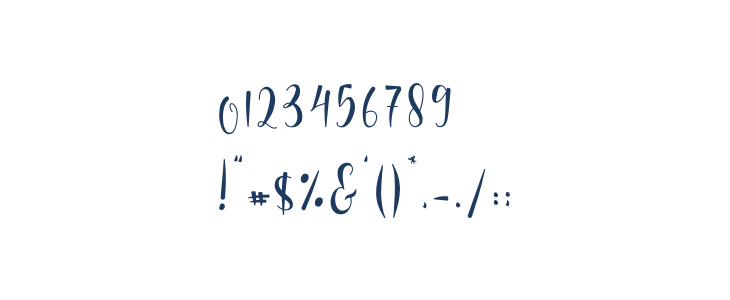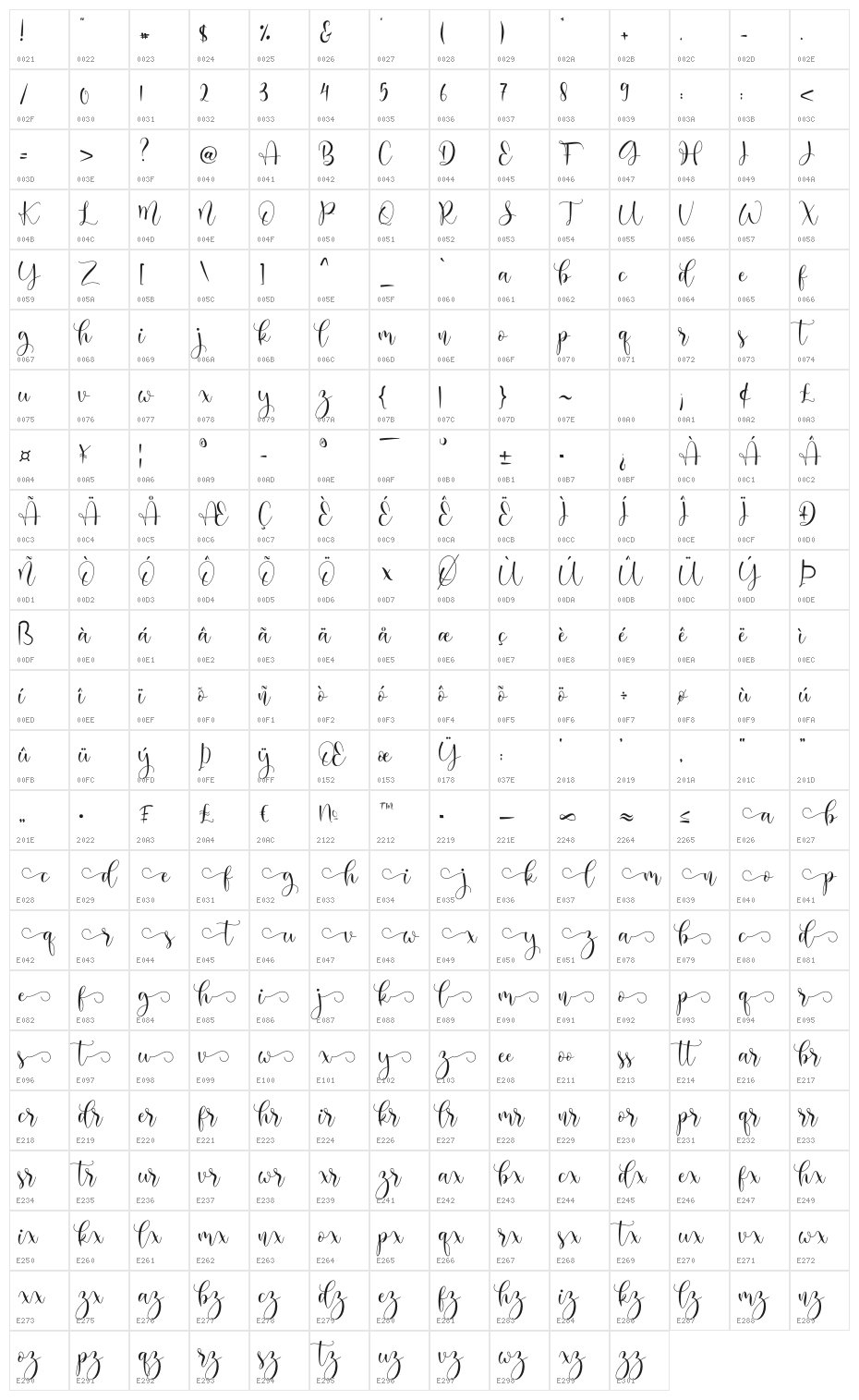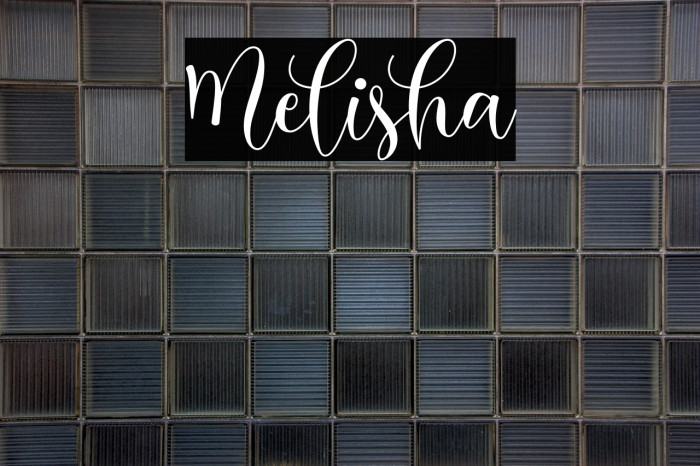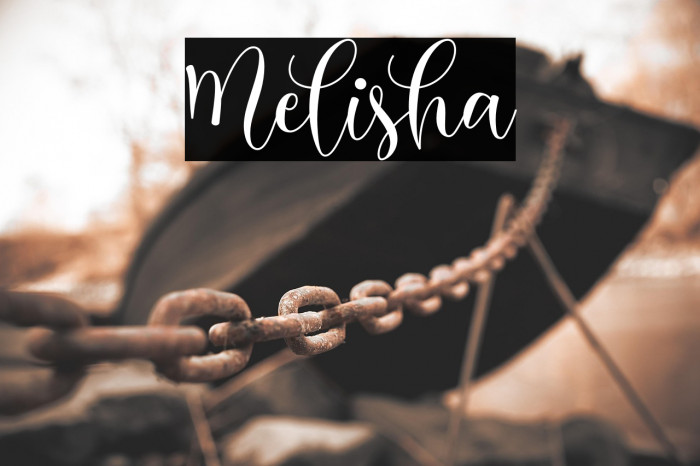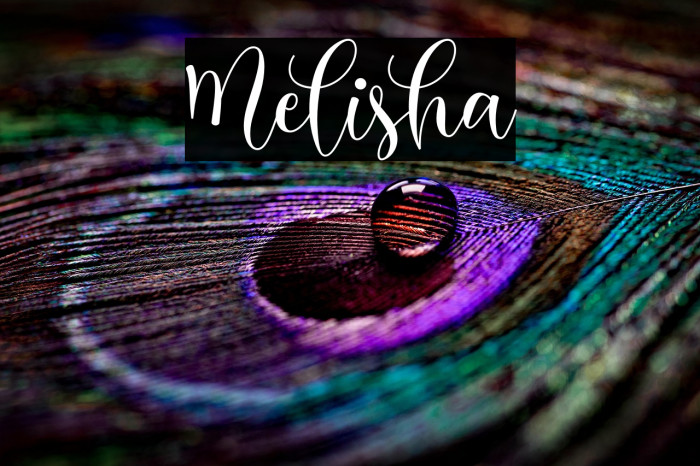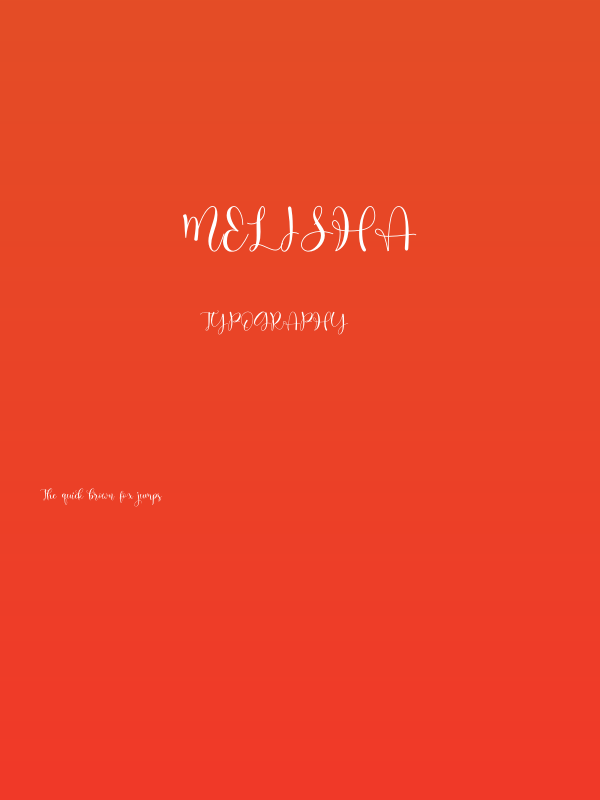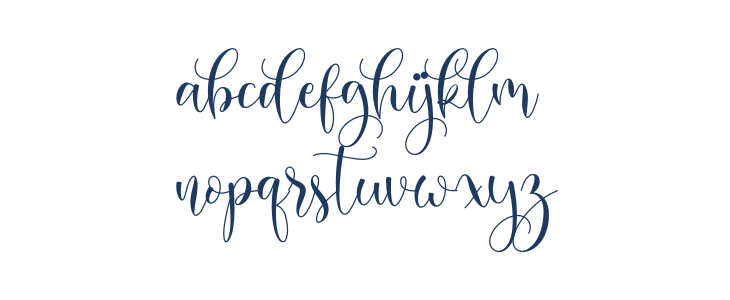
Melisha Font
Melisha Description
This font features an elegant and flowing script style, characterized by its smooth, cursive letters with intricate loops and swashes. The uppercase letters are particularly ornate, with elaborate flourishes that give a sense of sophistication and grace. The lowercase letters maintain a consistent style, with gentle curves and a slightly playful touch. The numerals are clear and maintain the script's overall aesthetic, while the special characters are thoughtfully designed to match the font's elegant theme. This font is perfect for projects that require a touch of elegance and personalization.